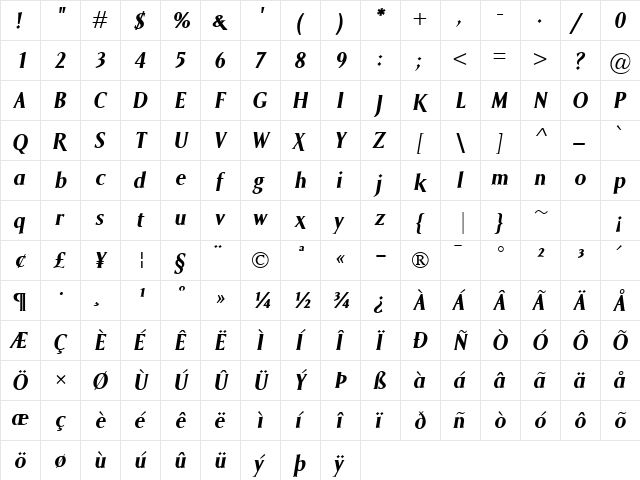
Saga BoldItalic
Design Context for Saga Typeface
Saga offers clean, dependable letterforms without strong stylistic allegiance, making it a practical choice for designers who need flexibility. Its italic angle brings a sense of urgency and motion to the letterforms. Its bold stroke weight gives it real presence on the page.
Pro Tip: Try Saga for annotation and caption copy alongside an upright companion — the contrast in angle creates a dynamic but ordered typographic system.